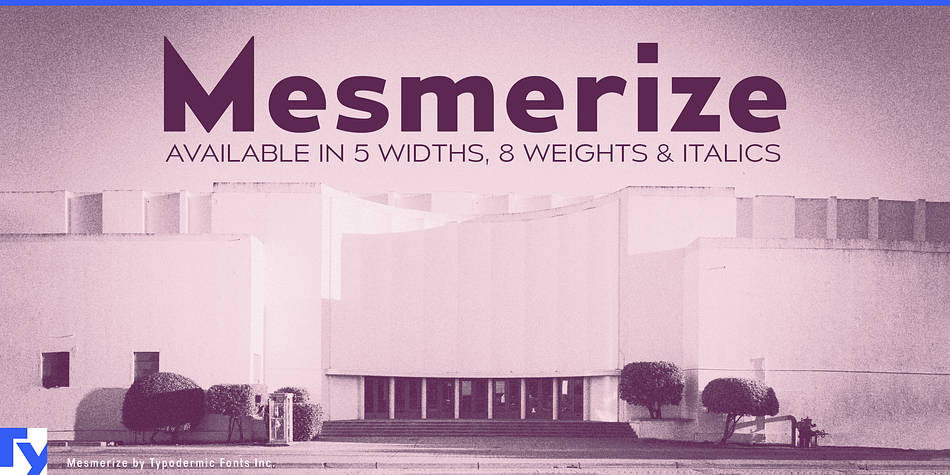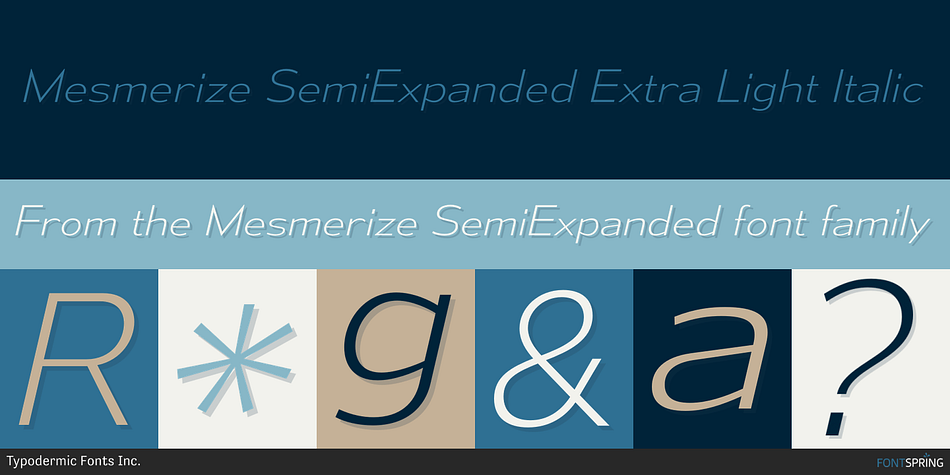
Mesmerize SemiExpanded Extra Light Italic
Mesmerize SemiExpanded is a sans serif font family. This typeface has sixteen styles and was published by Typodermic Fonts Inc.
Mesmerize is a sans-serif typeface with a low x-height. There are 8 weights, 5 widths, and italics available. When followed by a lowercase l, the capital I will be substituted by a serifed I. You can use old-style numbers, tabular lined numerals, and tabular old-style numerals in OpenType applications. Most Latin-based European writing systems are supported, including the following languages. Afaan Oromo, Afar, Afrikaans, Albanian, Alsatian, Aromanian, Aymara, Bashkir (Latin), Basque, Belarusian (Latin), Bemba, Bikol, Bosnian, Breton, Cape Verdean, Creole, Catalan, Cebuano, Chamorro, Chavacano, Chichewa, Crimean Tatar (Latin), Croatian, Czech, Danish, Dawan, Dholuo, Dutch, English, Estonian, Faroese, Fijian, Filipino, Finnish, French, Frisian, Friulian, Gagauz (Latin), Galician, Ganda, Genoese, German, Greenlandic, Guadeloupean Creole, Haitian Creole, Hawaiian, Hiligaynon, Hungarian, Icelandic, Ilocano, Indonesian, Irish, Italian, Jamaican, Kaqchikel, Karakalpak (Latin), Kashubian, Kikongo, Kinyarwanda, Kirundi, Kurdish (Latin), Latvian, Lithuanian, Lombard, Low Saxon, Luxembourgish, Maasai, Makhuwa, Malay, Maltese, Māori, Moldovan, Montenegrin, Ndebele, Neapolitan, Norwegian, Novial, Occitan, Ossetian (Latin), Papiamento, Piedmontese, Polish, Portuguese, Quechua, Rarotongan, Romanian, Romansh, Sami, Sango, Saramaccan, Sardinian, Scottish Gaelic, Serbian (Latin), Shona, Sicilian, Silesian, Slovak, Slovenian, Somali, Sorbian, Sotho, Spanish, Swahili, Swazi, Swedish, Tagalog, Tahitian, Tetum, Tongan, Tshiluba, Tsonga, Tswana, Tumbuka, Turkish, Turkmen (Latin), Tuvaluan, Uzbek (Latin), Venetian, Vepsian, Võro, Walloon, Waray-Waray, Wayuu, Welsh, Wolof, Xhosa, Yapese, Zapotec Zulu and Zuni.